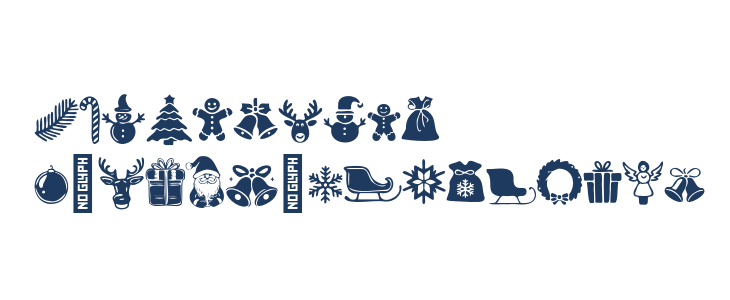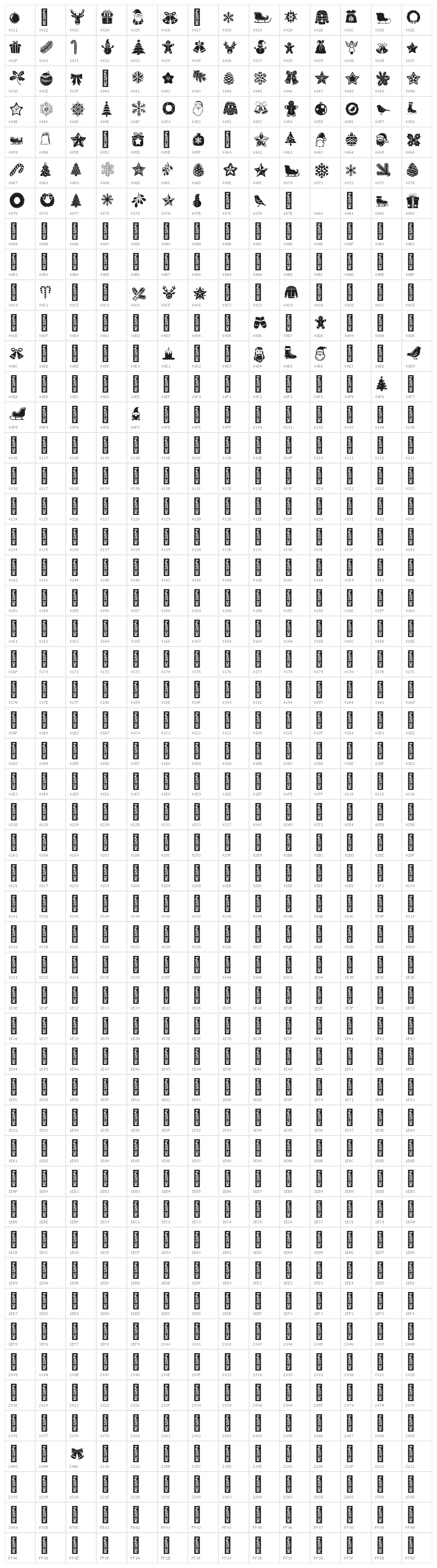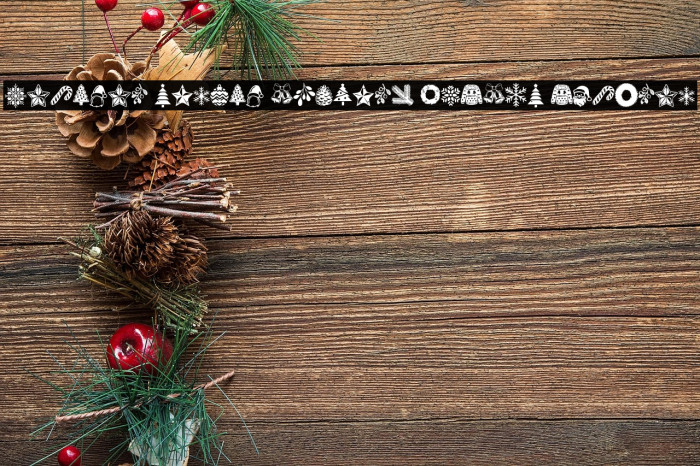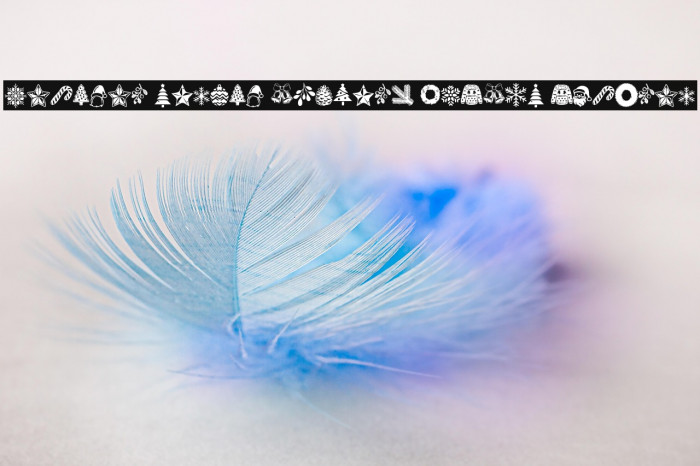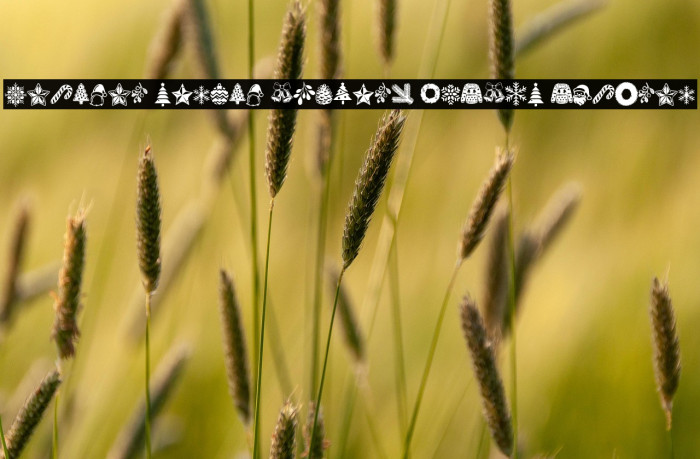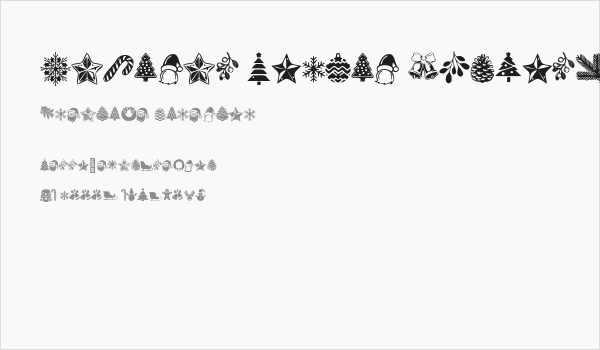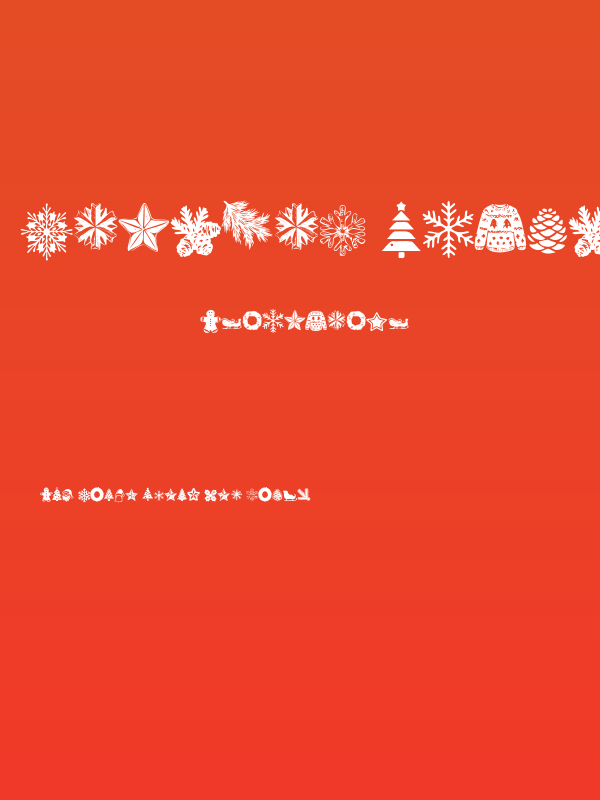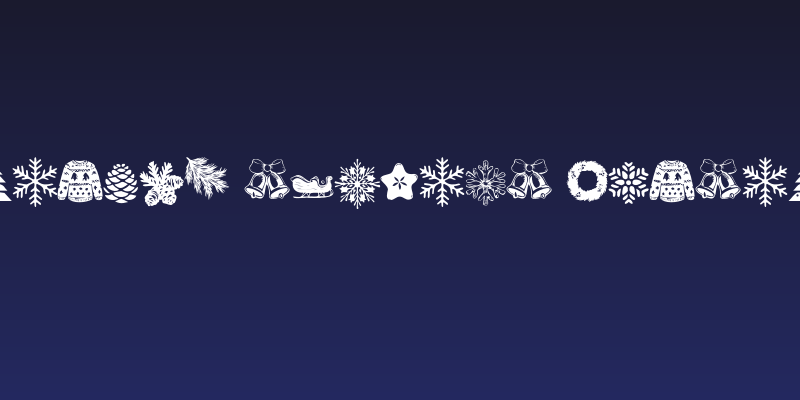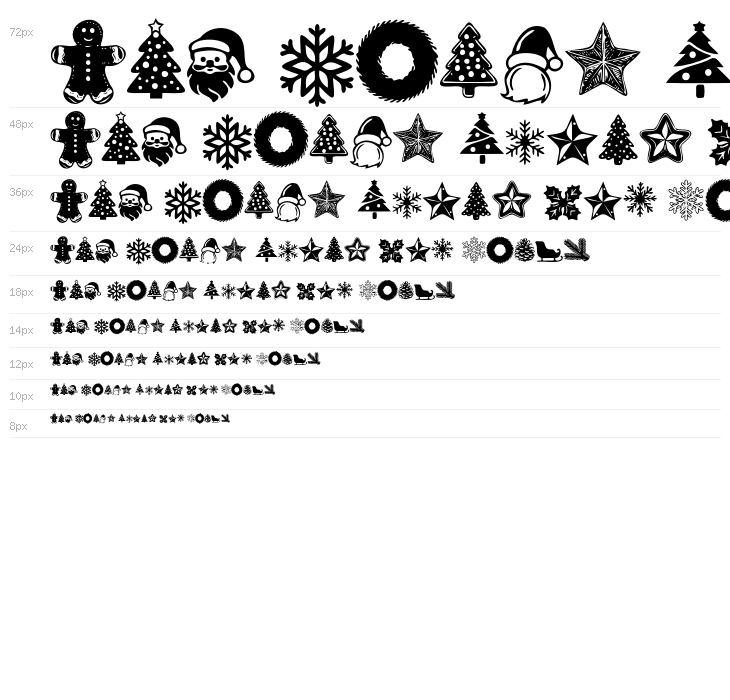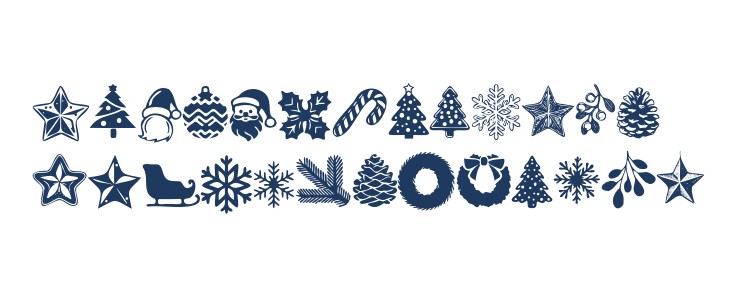
Magical Nordic Symbols PERSON Regular Font
Magical Nordic Symbols PERSON Regular Description
A decorative dingbat set featuring bold, high-contrast Christmas and winter-themed icons such as snowflakes, stars, pinecones, Santa, trees, gifts, and wreaths. The glyphs are solid, playful, and highly stylized, with clear outlines and festive motifs.
Overall StyleDecorative, Festive, Playful
Use CaseIcons, Decorative borders, Themed graphics
Proposed ProjectsHoliday cards, seasonal posters, gift tags, event invitations, festive packaging, digital stickers.